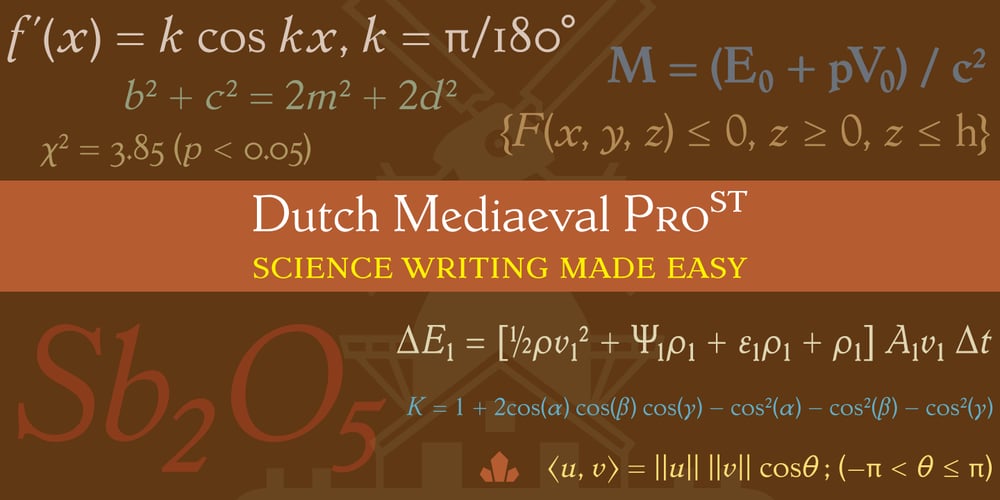
Dutch Mediaeval Pro ST
Dutch Mediaeval Pro ST Font Family was designed by Hans van Maanen, Patrick Griffin and published by Canada Type. Dutch Mediaeval Pro ST contains 4 styles and family package options. Dutch Mediaeval Pro ST is a special version of the popular Dutch Mediaeval Pro family, engineered specifically for science writing. It is equipped with SciType, a combination of additional characters and OpenType programming included in the fonts to help in typesetting science text. For more information about SciType, please consult the SciType FAQ available in the Gallery section of this page. The Dutch Mediaeval design is the historically renown one made in 1912 by S. H. de Roos. It stands out as one of the most classic Dutch text faces. This digital version comes in two weights and their italic counterparts. Aside from the SciType additions, all the fonts contain OpenType features for small caps and caps-to-small-caps, ligatures, ordinals, automatic fractions, seven kinds of figures, and a few ornaments. For details about the functionality of Dutch Mediaeval Pro ST, please consult its Access Chart PDF available in the Gallery section of this page.